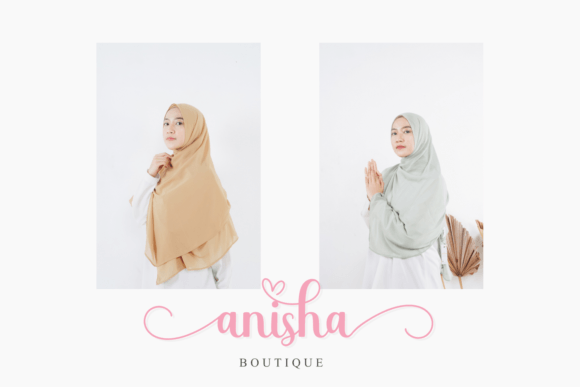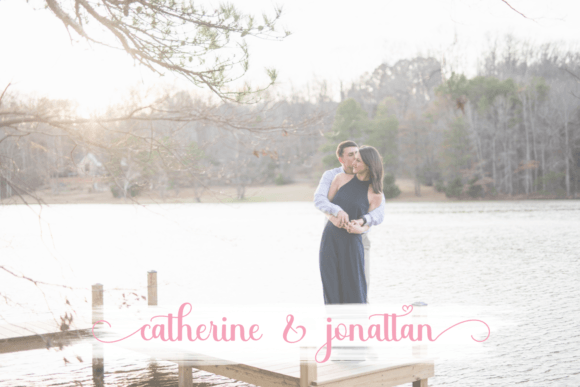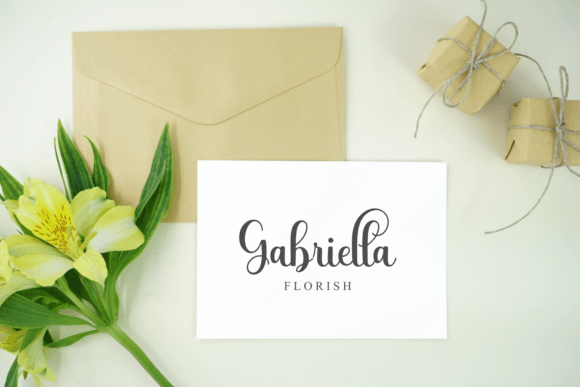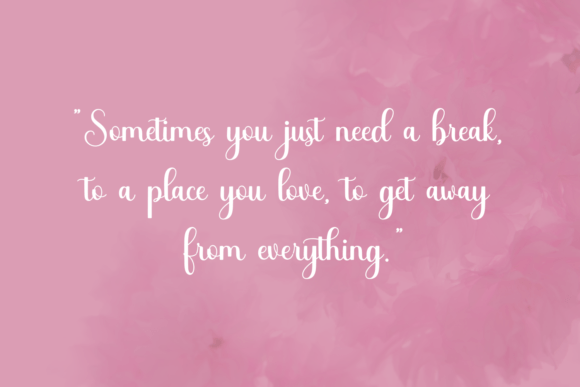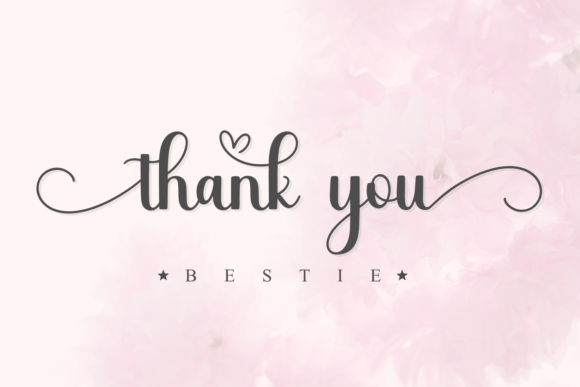
Unleash Your Creativity with the Timeless Darley Font
As a designer, have you ever found yourself staring at a blank canvas, searching for the perfect font to bring your vision to life? That’s exactly where the Darley Font comes in – a sweet and classy calligraphy font that exudes elegance and sophistication.
Whether you’re creating a logo, label, or invitation, the Darley Font is the perfect addition to elevate your designs and make them truly stand out. With its PUA-encoded design, you’ll have access to all the glyphs and swashes you need to add a personal touch to your work. As a designer, you know how valuable it is to have a versatile font that can be used across various projects – and that’s exactly what the Darley Font offers.
- Unique Characteristics: Elegant, modern script font with intricate connections and flowing lines, ideal for wedding invitations, quotes, and other decorative typography
Darley Font Review
As a designer, I was excited to dive into the Darley Font and see what it had to offer. Overall, I found it to be a decent font with some nice features, but also some limitations.
- ✨ Elegant and refined feel: The Darley Font has a classic, sophisticated look that would be perfect for high-end branding, luxury goods, or formal invitations.
- ✨ Versatility: The font comes in a range of weights and styles, making it suitable for various applications, from body text to headlines.
- ✨ High-quality rendering: The font renders smoothly and consistently across different screen sizes and resolutions.
- ⚠️ Limited expressiveness: While the Darley Font is elegant, it can come across as a bit generic and lacking in personality.
- ⚠️ Not ideal for bold or playful applications: The font’s refined feel makes it less suitable for more casual or attention-grabbing designs.
- ⚠️ Not as distinctive as some other fonts: In a crowded font market, the Darley Font may struggle to stand out and leave a lasting impression.
Overall, the Darley Font is a solid choice for designers looking for a classic, sophisticated font for formal applications. However, it may not be the best fit for more creative or attention-grabbing projects.
For the best results, use the Darley Font in combination with other elegant and sophisticated design elements. Experiment with different font sizes and styles to create a unique and eye-catching design. Don’t forget to adjust the font color to match your brand’s color scheme.
The Darley Font is ideal for creating formal and professional designs, such as:
- Business cards and letterheads
- Logos and branding materials
- Invitations and event materials
- Menus and certificates
- Presentations and reports